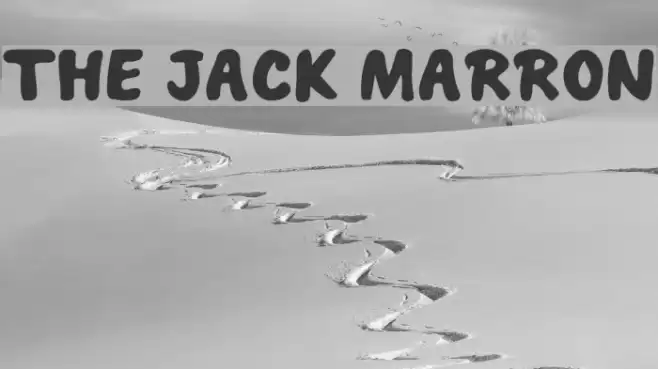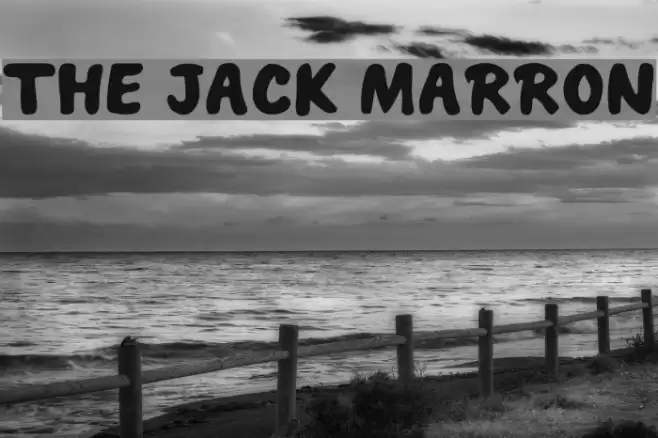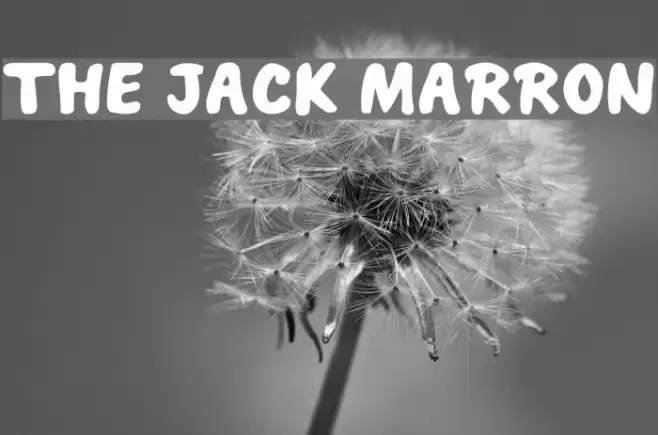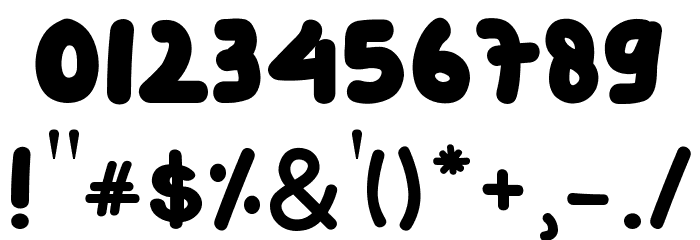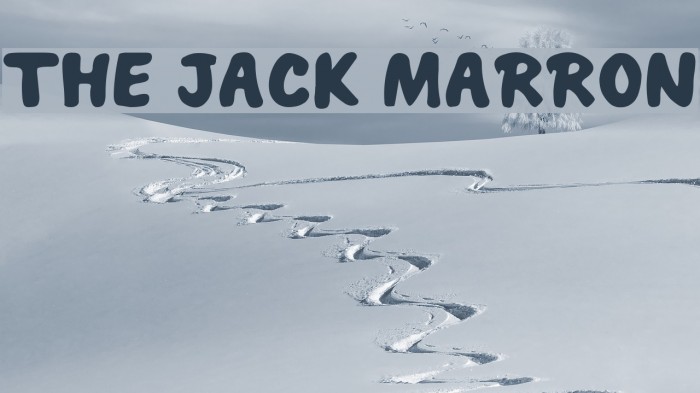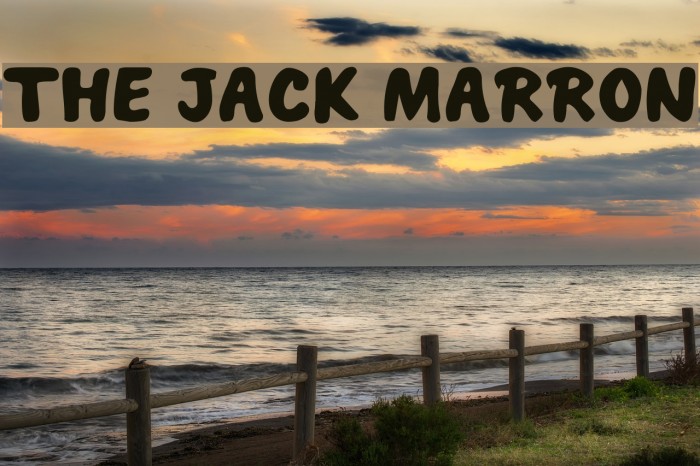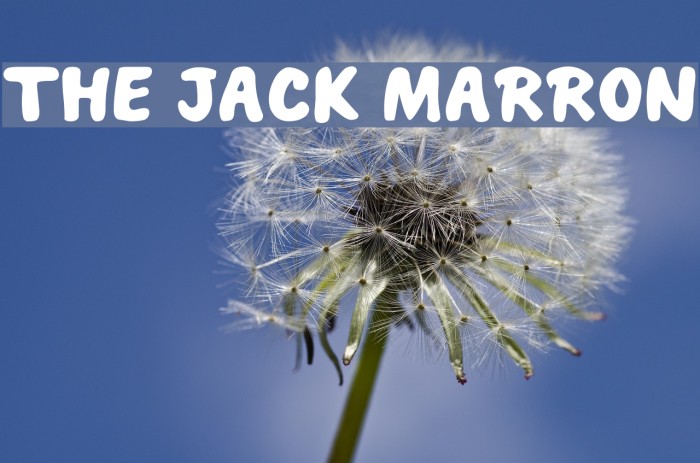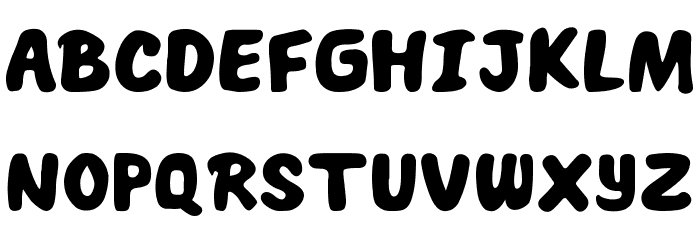
THE JACK MARRON Font
THE JACK MARRON Description
This font features a bold and playful style with rounded edges and a bubbly appearance. The characters are thick and have a uniform stroke width, giving them a strong presence. The uppercase and lowercase letters maintain a consistent design, enhancing readability while adding a touch of whimsy. The numbers and special characters follow the same playful theme, making them suitable for casual and fun designs. The overall look is friendly and approachable, making it ideal for projects that require a lighthearted and engaging tone.
A bold, playful font with rounded edges and a bubbly appearance from Uncategorized fonts.
- Proposed Projects: Ideal for children's books, playful branding, party invitations, and casual posters.
- Overall Style: Playful